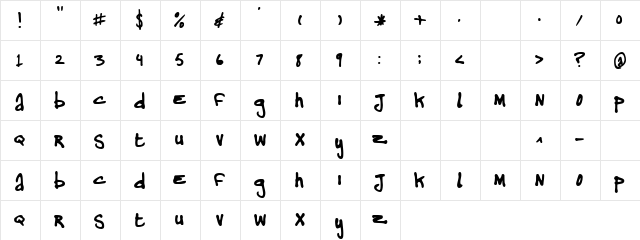
Drewtype Regular
Design Context for Drewtype Typeface
Drewtype is a composed and adaptable typeface that performs quietly and consistently across a wide range of design contexts.